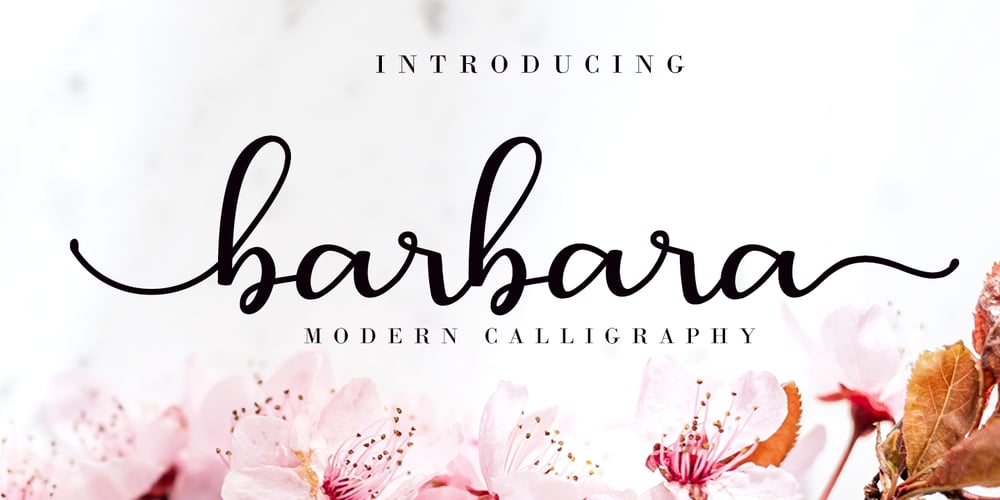
Barbara Calligraphy Font Family was designed by Agung Eko Nugroho and published by AEN Creative Studio. Barbara Calligraphy contains 2 styles and family package options. Barbara Calligraphy is a beautiful script font. It has a classy, elegant, and modern look which can be used for logos, branding, invitations, stationery, wedding designs, social media posts, and every other design in need of a handwritten touch.